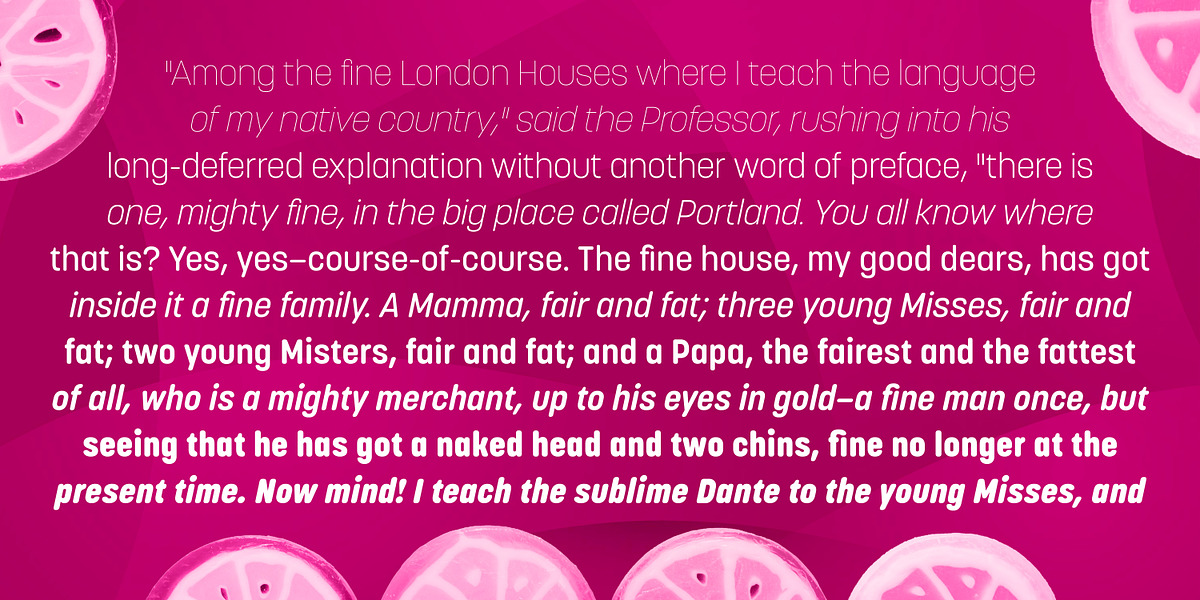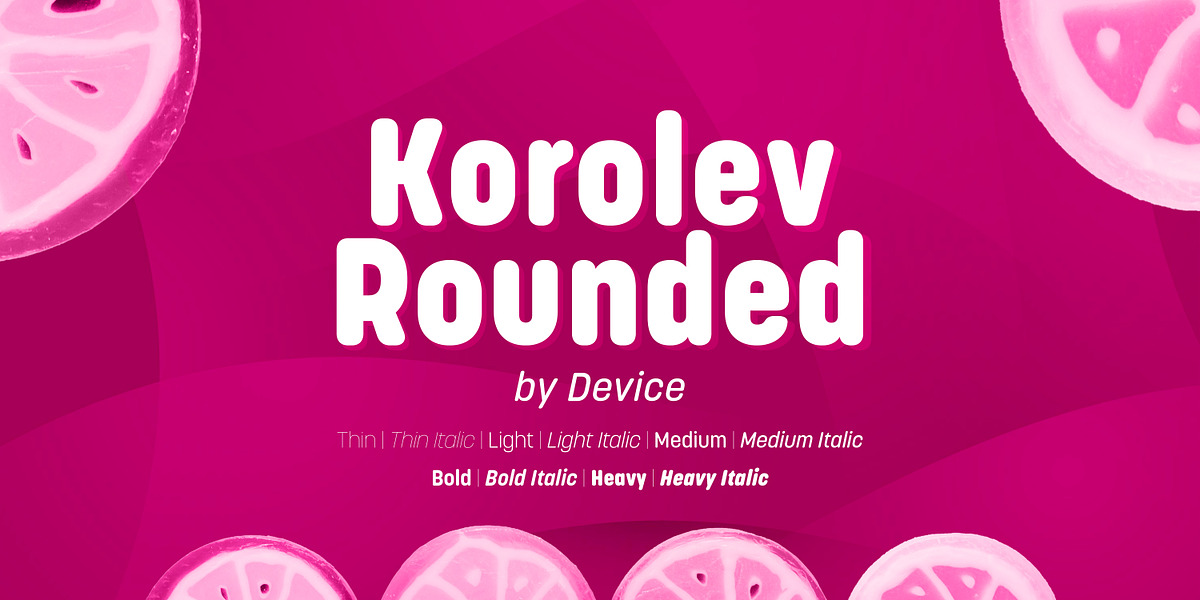
Korolev Rounded
Korolev Rounded is a modern take on a classic sans serif style. Inspired by Soviet propaganda lettering from 1937, the font features a distinctive geometric structure softened by rounded edges. Its versatility makes it suitable for both branding and display applications, while its friendly personality adds approachability.